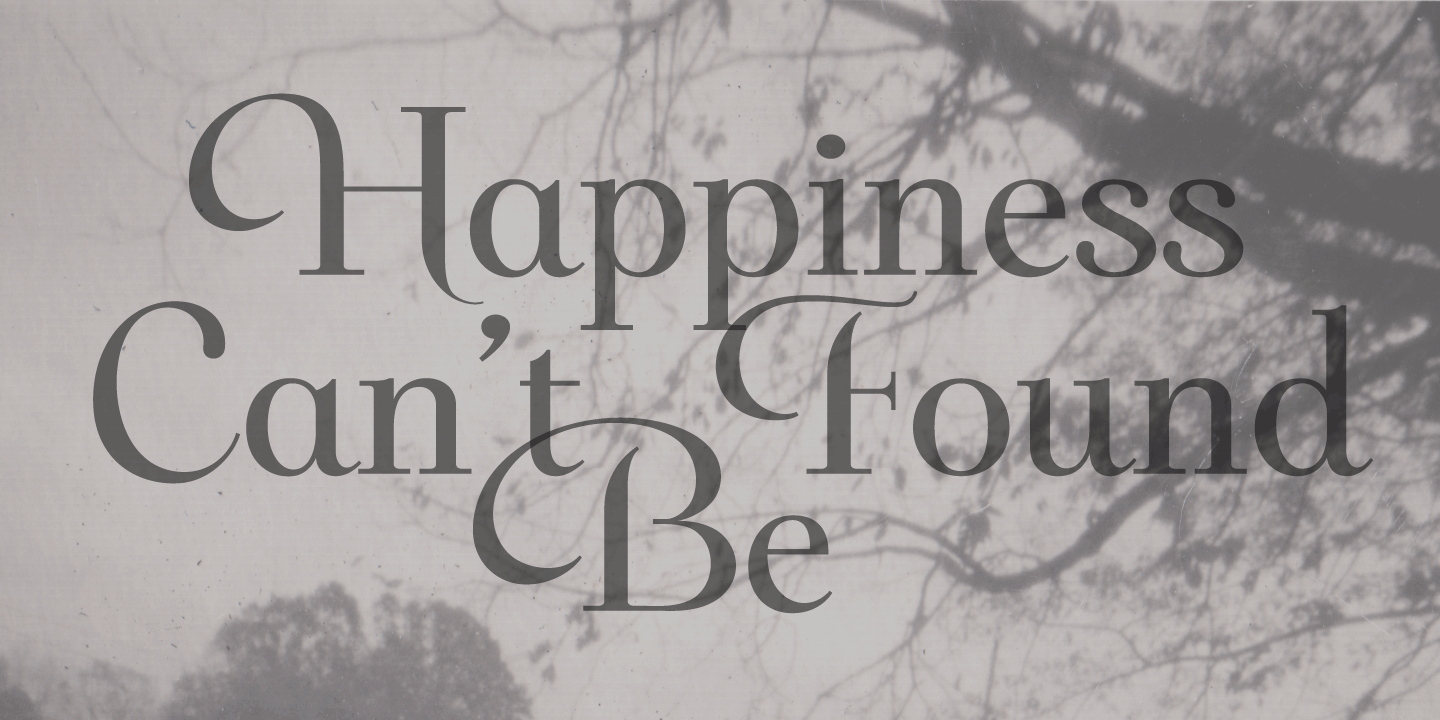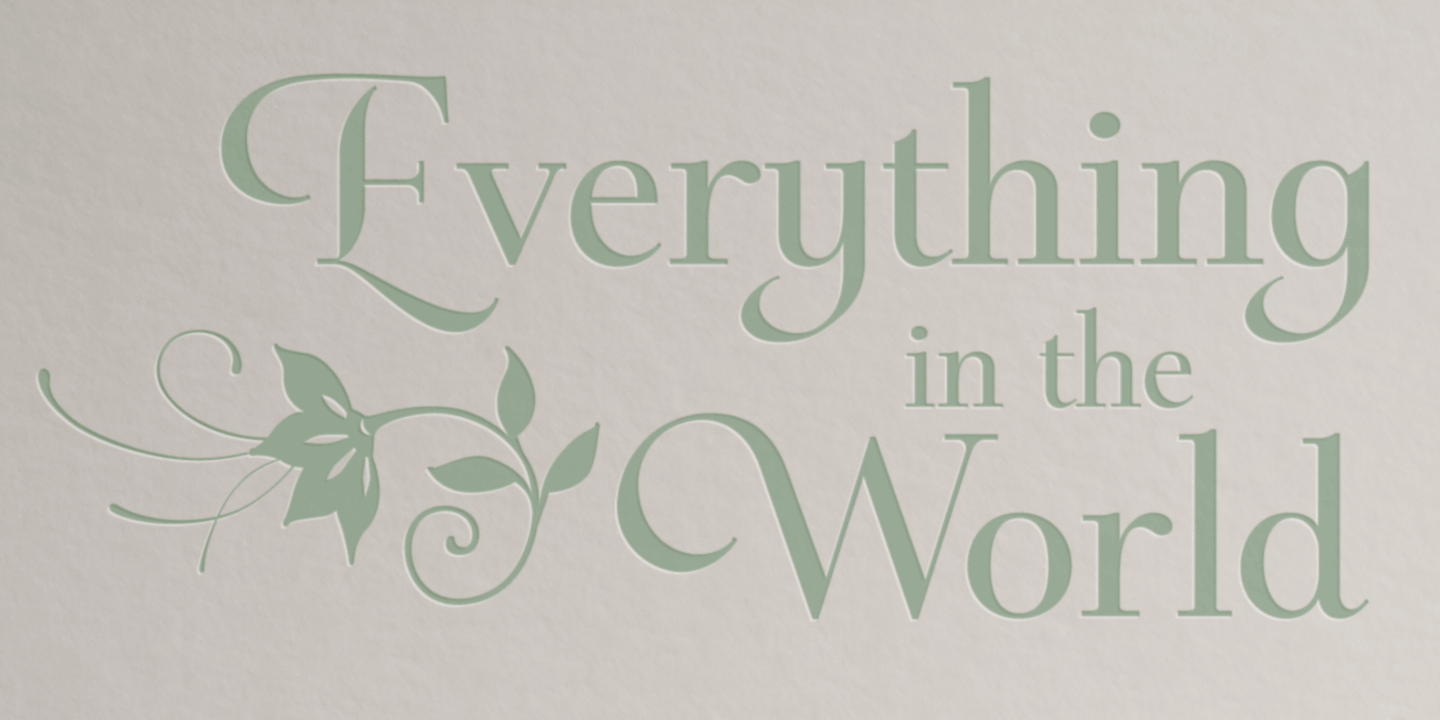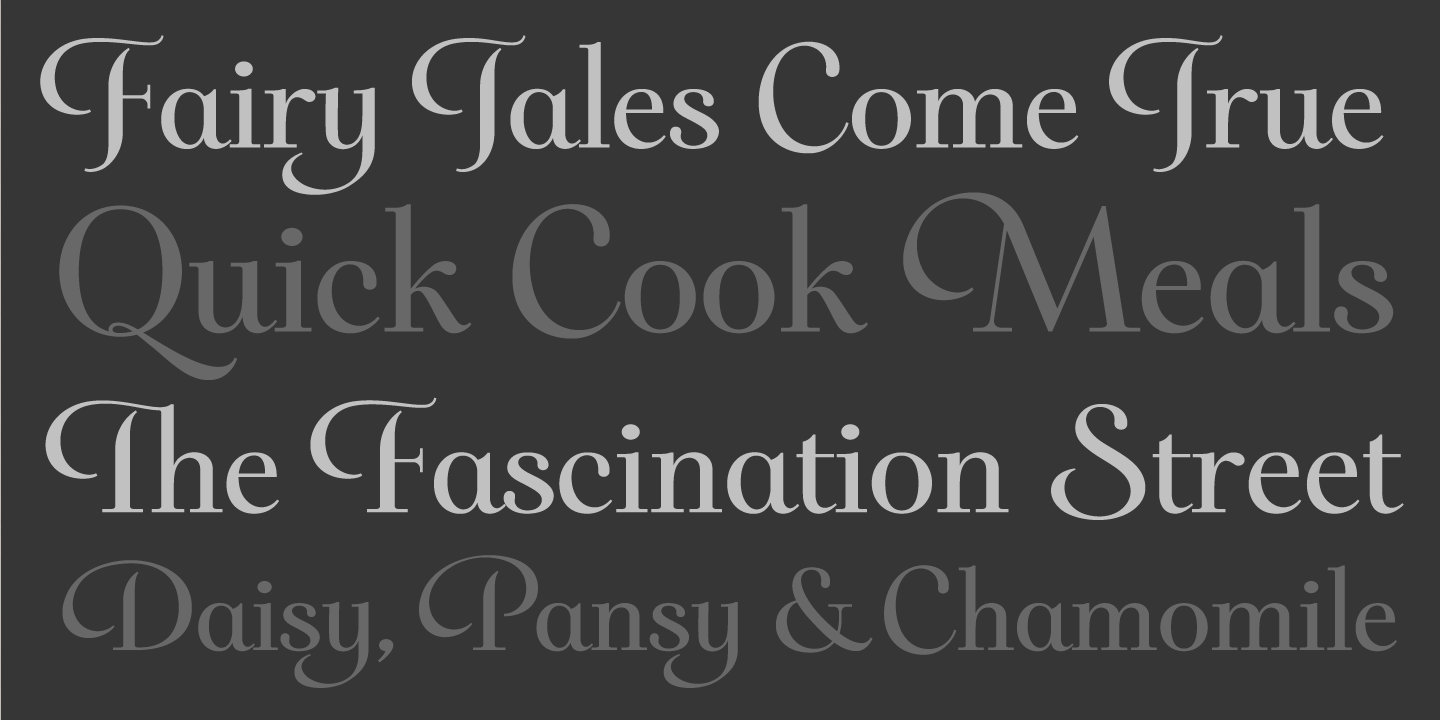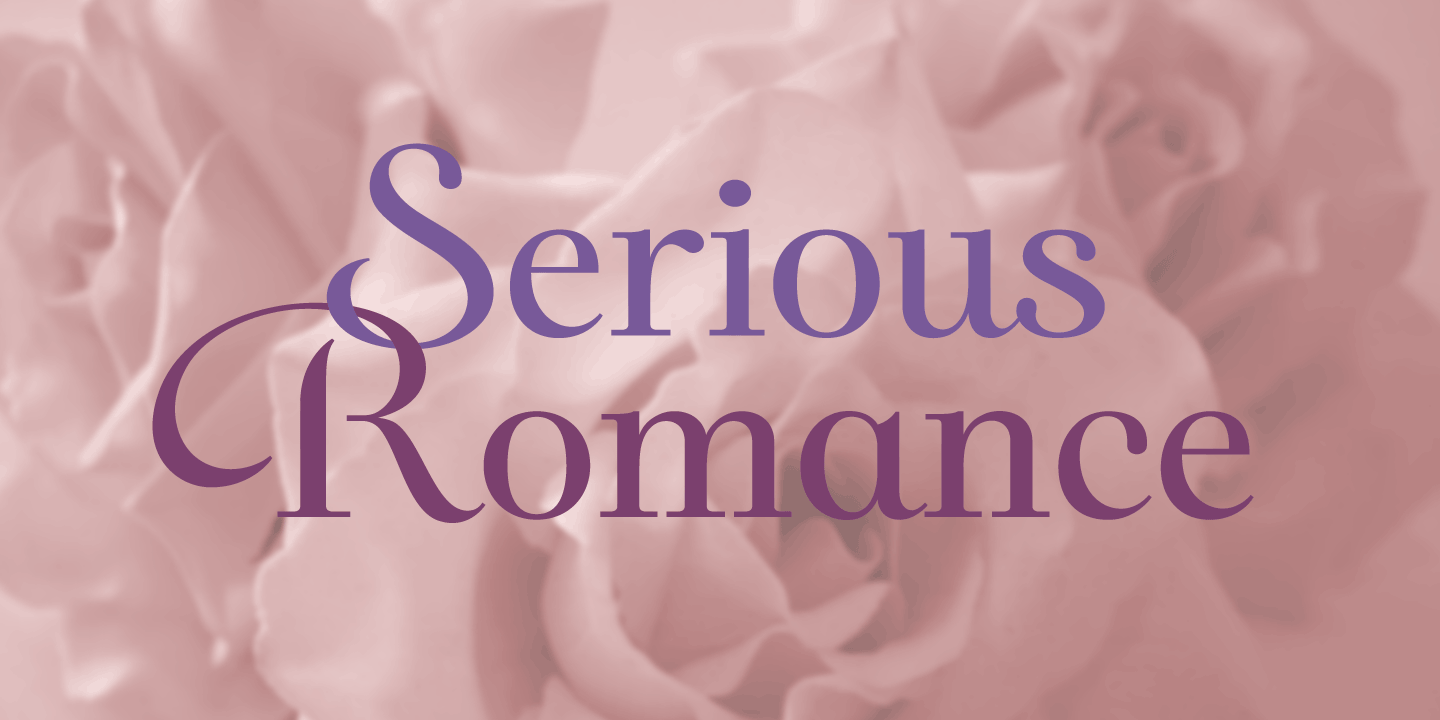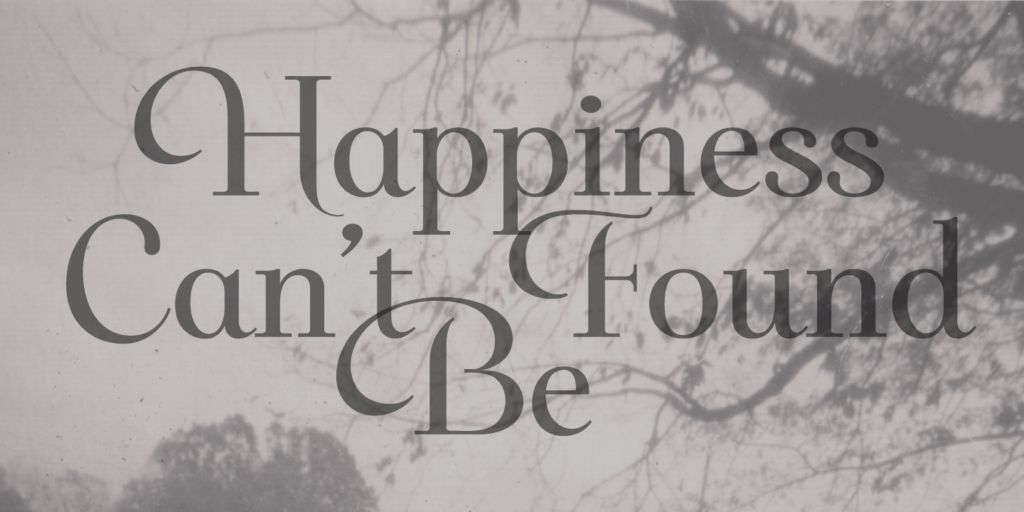
Darlena
About Darlena
Darlena is a swashed typeface that is perfect for grabbing attention. Influenced by Italian calligraphy from the late 1500\’s, with modern serifs thrown in.